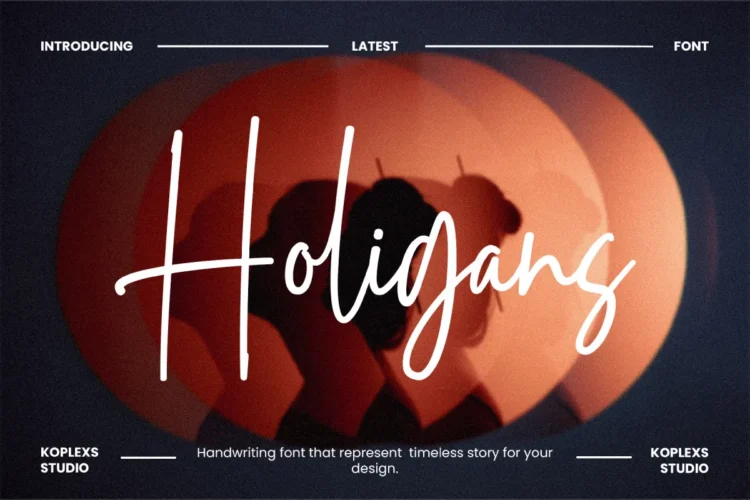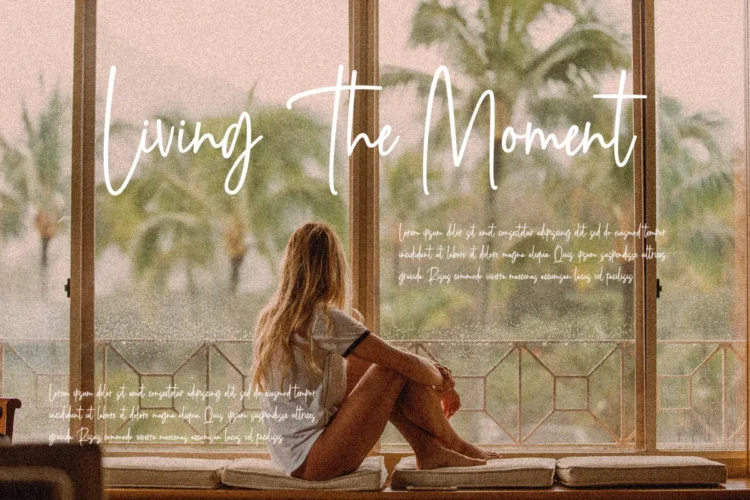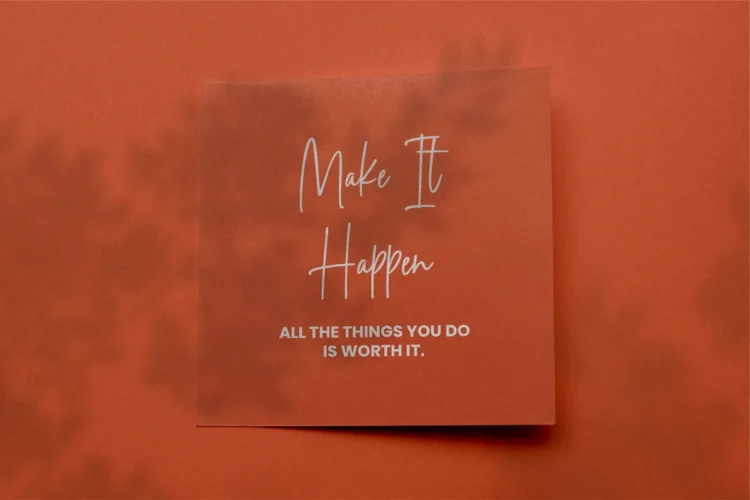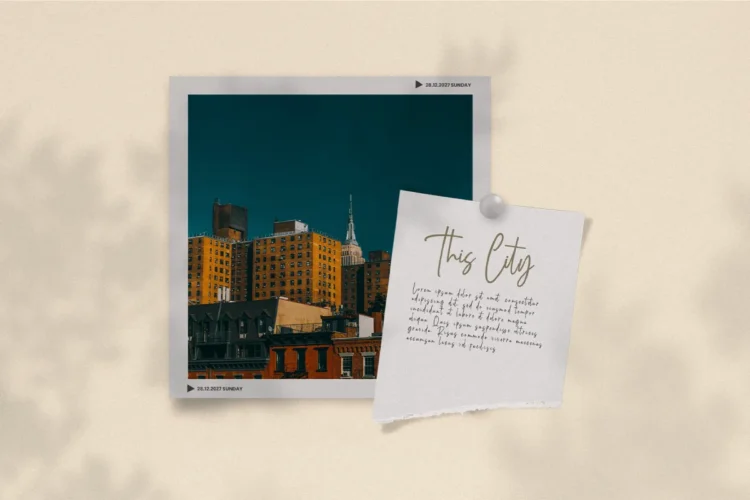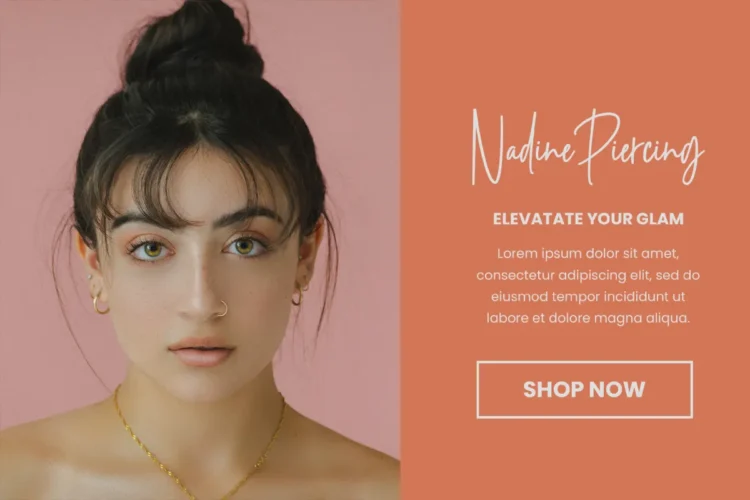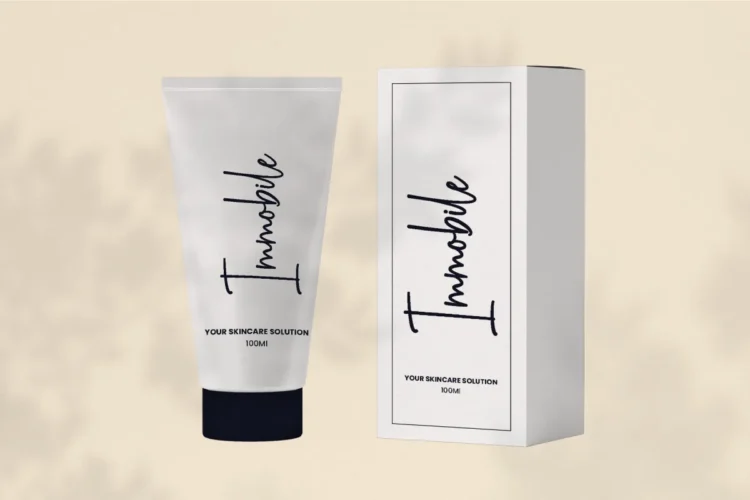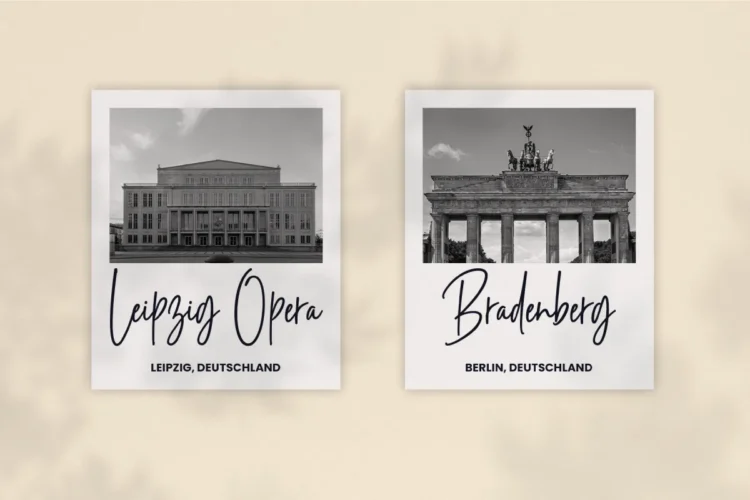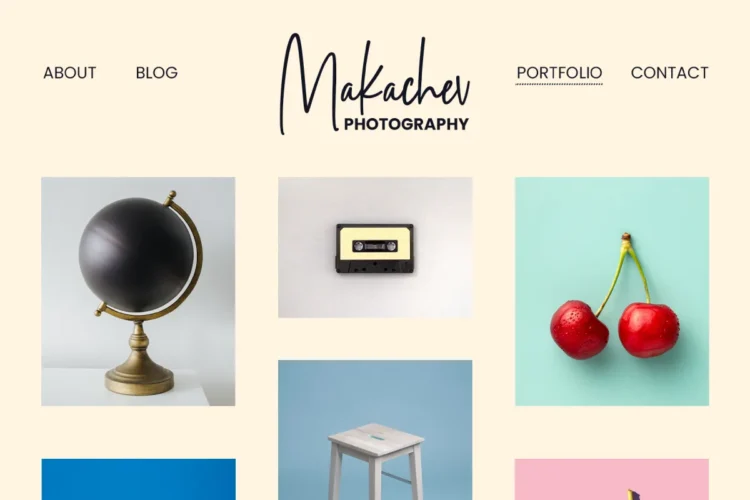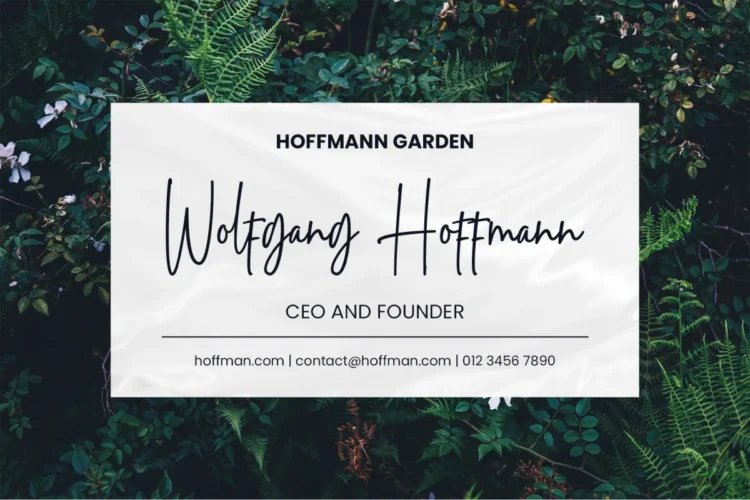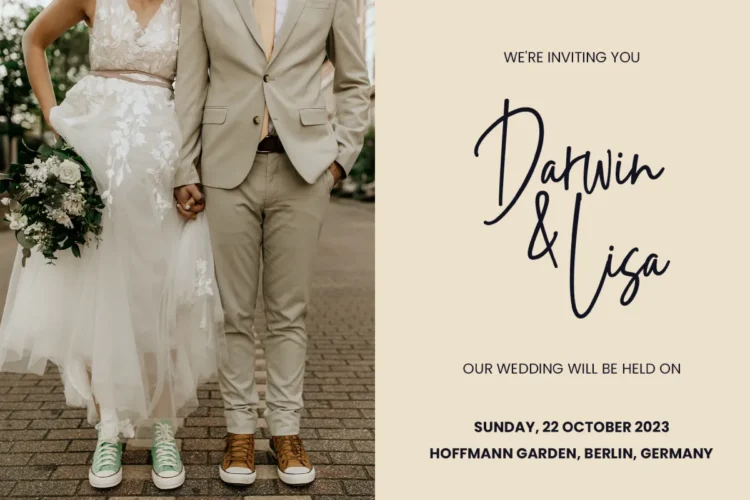
Holigans Font – Modern Handwritten Script & Signature Font for Branding
Holigans Font is a modern Handwritten Font that beautifully blends elegance, personality, and authenticity. Designed with smooth curves and natural strokes, this script font is perfect for adding a personal and stylish touch to your creative projects. Whether you need a Signature Font for branding, a Wedding Font for invitations, or an Aesthetic Font for social media posts, Holigans adapts flawlessly to various styles.
This cursive font offers both simplicity and luxury, making it versatile as a logo font, cosmetic font, or even for calligraphy font projects. With its unique handwritten feel, Holigans Font is ideal for designers seeking modern fonts that maintain an elegant font appeal while still feeling natural and approachable.
Holigans Font Perfect for :
Holigans Font is versatile and works beautifully for :
- Wedding Invitations & Save the Date Cards
- Personal Branding & Logo Designs
- Cosmetic & Skincare Packaging
- Social Media Posts & Aesthetic Feeds
- Luxury Fashion Branding
- Business Cards & Signature Logos
- Posters, Quotes & Calligraphy Projects
Bring timeless elegance and modern aesthetics together with Holigans Font. Elevate your design, make your brand memorable, and let your words flow with sophistication.